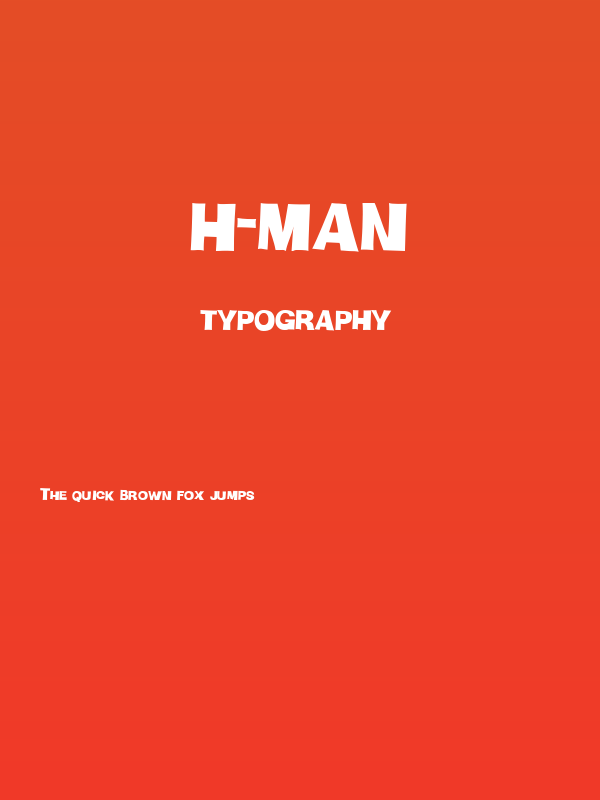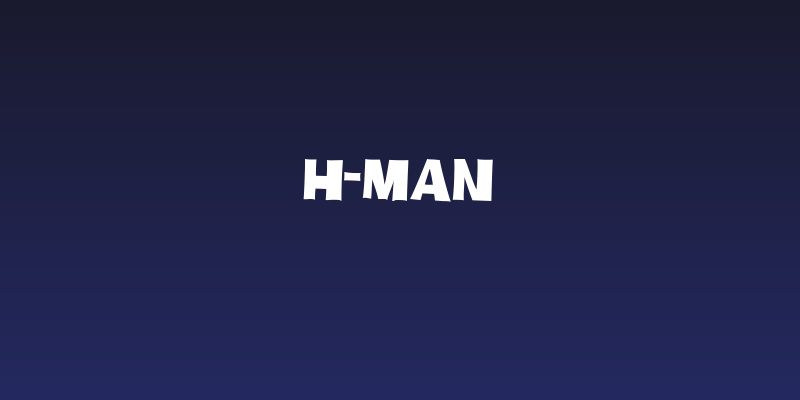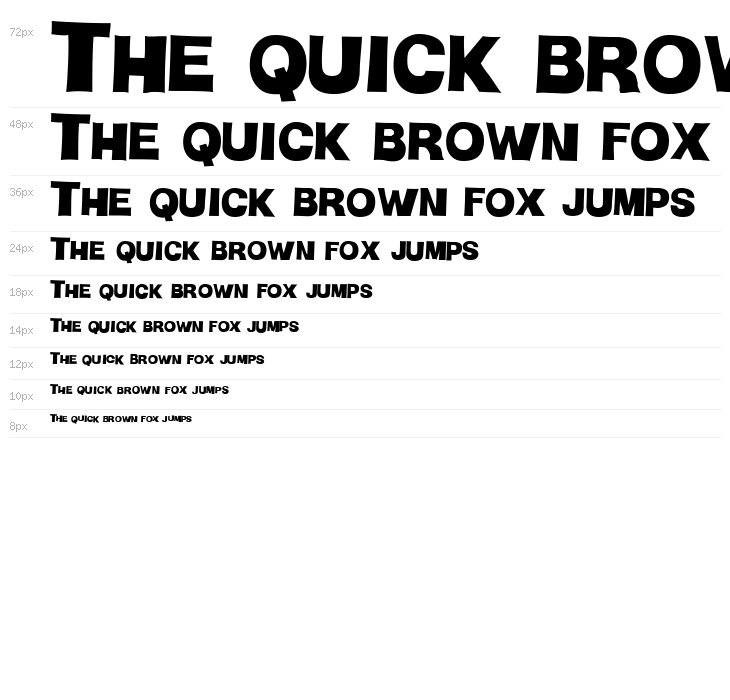
H-Man Font
H-Man Description
This font is characterized by its bold and impactful design, featuring thick strokes and a strong presence. The uppercase letters are uniform in height, creating a cohesive and powerful look. The numbers and special characters maintain the same boldness, ensuring consistency across all elements. The font's style is straightforward and assertive, making it ideal for attention-grabbing headlines or branding materials. Its simplicity and strength make it versatile for various design applications.
| Proposed Projects | Ideal for headlines, posters, branding, and advertising materials where a strong visual impact is needed. |